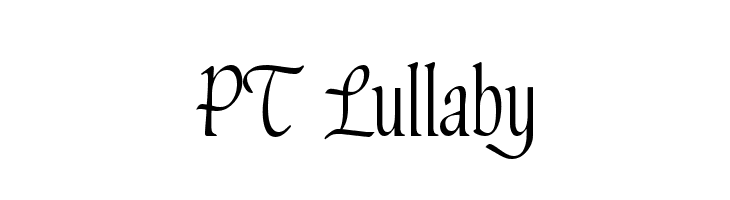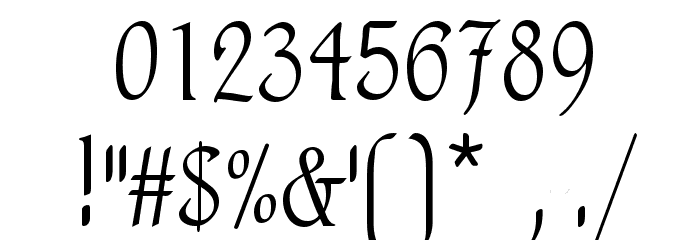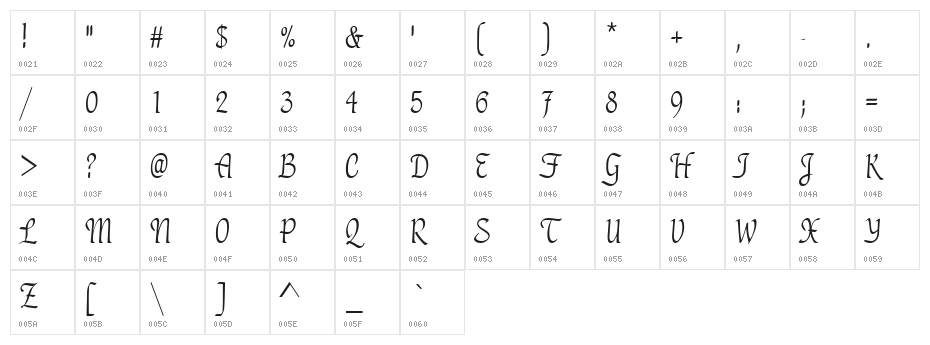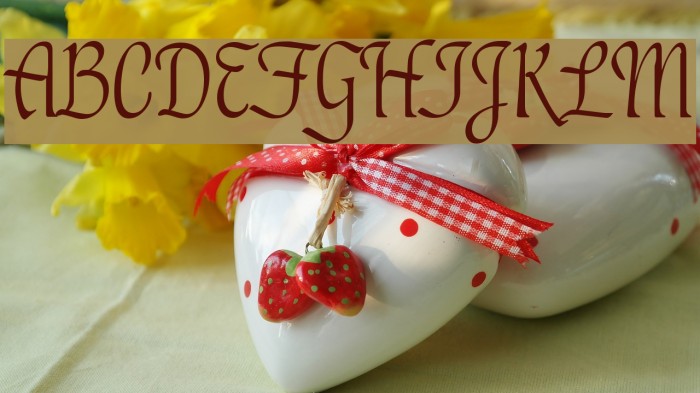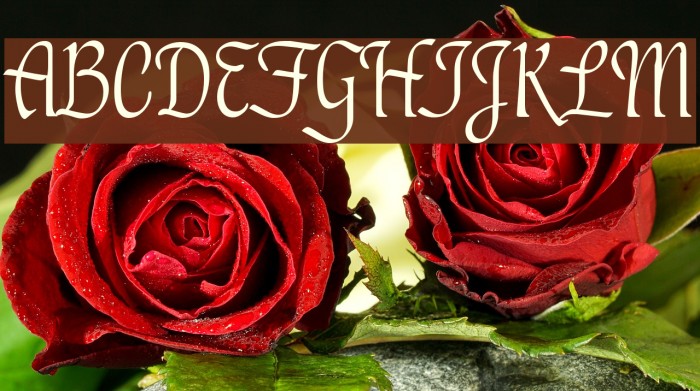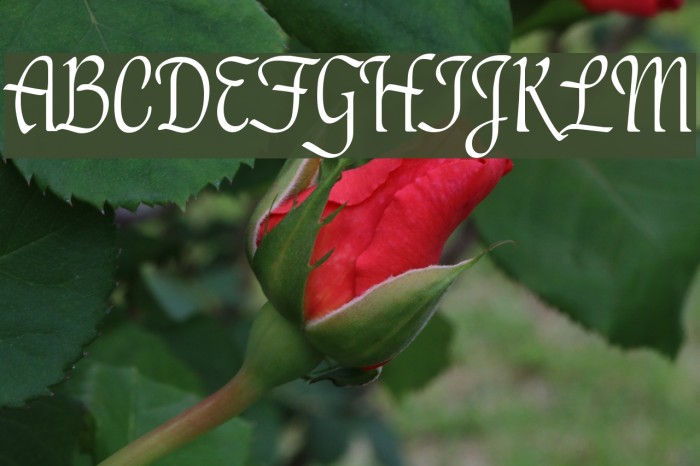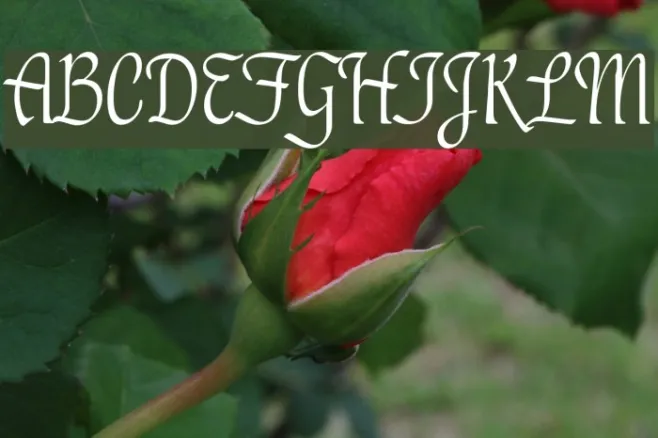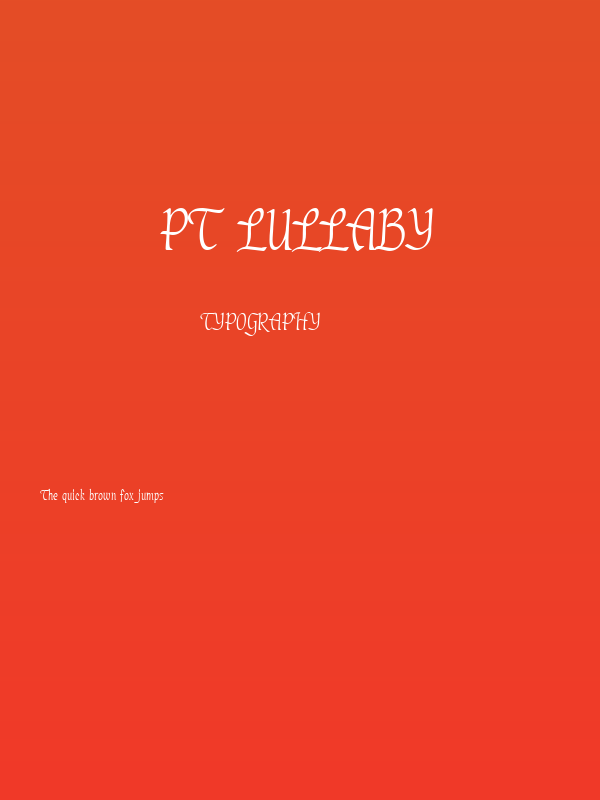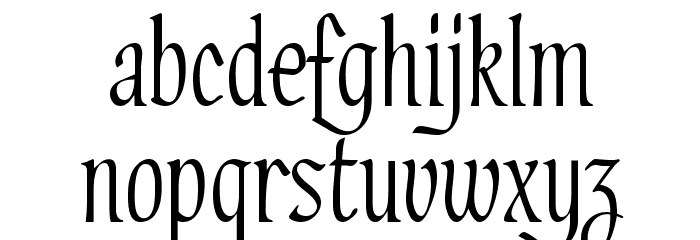
PT Lullaby Font
PT Lullaby Description
This font exhibits a distinctive and elegant style, characterized by its flowing, calligraphic strokes that evoke a sense of sophistication and artistry. The uppercase letters feature unique, sweeping curves and flourishes, while the lowercase letters maintain a more restrained yet equally graceful appearance. The numerals and special characters are crafted with the same attention to detail, ensuring a cohesive and harmonious look across all elements. This font's design is reminiscent of traditional calligraphy, yet it incorporates modern elements that make it suitable for contemporary use. Its artistic flair and refined elegance make it an excellent choice for projects that require a touch of class and creativity.
| Proposed Projects | Ideal for wedding invitations, luxury branding, artistic posters, and elegant packaging designs. |